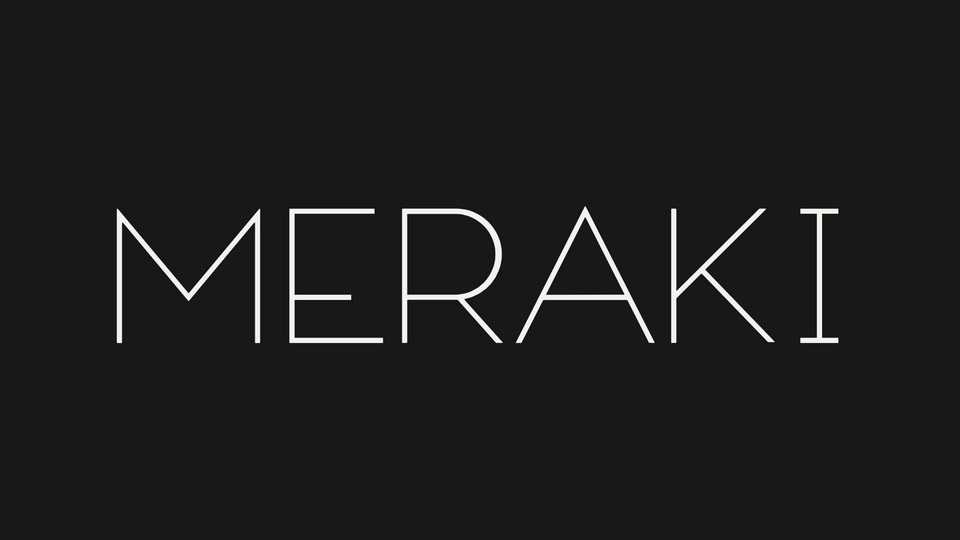
Download Meraki font, a clean sans serif typeface. Meraki was created as a response to the staggering rise in the number of children who qualify for free school meals since the start of the Covid Pandemic.
Designer: Extrabold